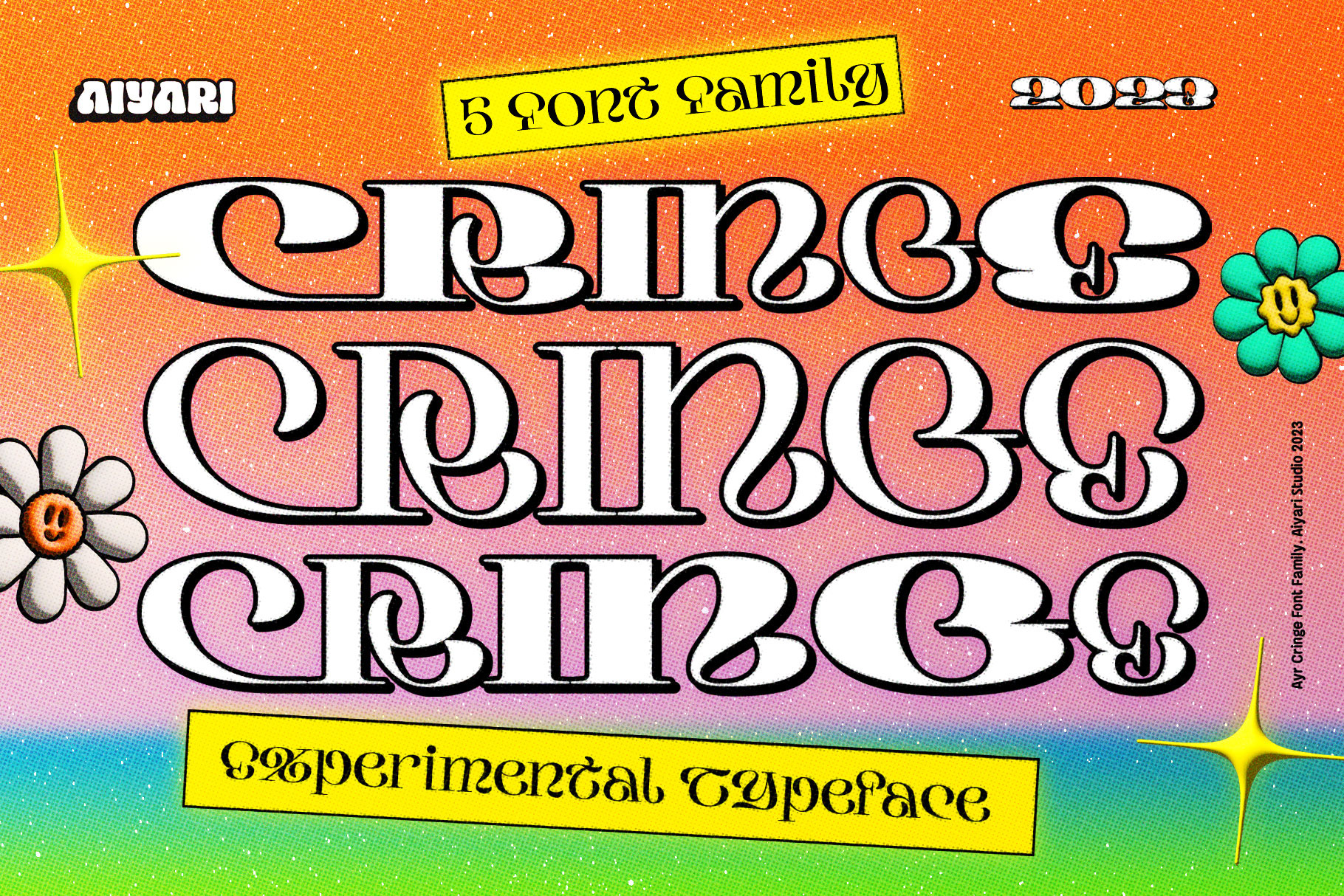
Cringe Experimental Typeface
Introducing "Cringe": a captivating typeface that draws inspiration from the mesmerizing world of psychedelic pop culture and combining it with a uncial letter form and calligraphy approach. Each character exudes a sense of whimsy and free-spiritedness. Cringe Font Family contains 5 style regular, medium, semi bold, bold, & Expanded. It comes with Stylistic set & ligatures.